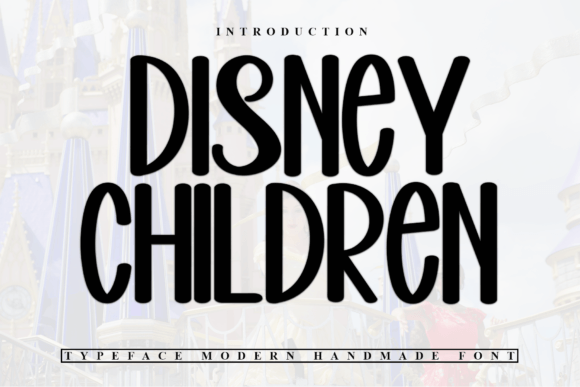
Introducing Disney Children Font: A Festive and Happy Typeface for Your Holiday Designs
The holiday season is a time for joy, giving, and celebration. What better way to capture the spirit of this special time of year than with a font that’s as festive and happy as Disney Children Font? This charming typeface is perfect for adding a touch of magic to your designs, whether you’re creating greeting cards, gift labels, or holiday-themed projects.
A Font that Embodies the Spirit of the Holiday Season
Disney Children Font is a decorative typeface that’s specifically designed to bring a cheerful and nostalgic atmosphere to your words. Its unique flair and whimsical elements evoke the sense of wonder and enchantment that’s synonymous with the holiday season. Whether you’re a designer, a crafty DIY enthusiast, or simply someone who loves to get creative, this font is sure to become a favorite in your collection.
Perfect for a Variety of Holiday Projects
Disney Children Font is incredibly versatile, making it perfect for a wide range of holiday projects. Here are just a few ideas to get you started:
- Greeting cards: Create personalized and festive greeting cards for friends and family.
- Gift labels: Add a touch of magic to your gifts with custom labels that feature this charming font.
- Holiday-themed projects: Use Disney Children Font to create festive posters, flyers, and brochures for your holiday events.
- Social media graphics: Add a holiday touch to your social media posts with festive graphics that feature this delightful font.
Why Choose Disney Children Font?
With so many fonts to choose from, why should you choose Disney Children Font for your holiday designs? Here are just a few reasons:
- Unique and festive: This font is specifically designed to capture the spirit of the holiday season, making it a great choice for anyone looking to add a touch of magic to their designs.
- Versatile: Disney Children Font is perfect for a wide range of holiday projects, from greeting cards to social media graphics.
- High-quality: This font is designed to be clear and legible, even at small sizes, making it perfect for a variety of applications.
Tips for Using Disney Children Font
Here are a few tips for getting the most out of Disney Children Font:
- Experiment with different sizes and colors: This font looks great in a variety of sizes and colors, so don’t be afraid to experiment and find the look that works best for your design.
- Combine with other fonts: Disney Children Font pairs well with a variety of other fonts, so try combining it with other typefaces to create a unique and interesting look.
- Use glyphs and ligatures: Don’t be afraid to get creative with the glyphs and ligatures in Disney Children Font. These special characters can add a touch of whimsy and personality to your designs.
Disney Children Font is a festive and happy typeface that’s perfect for capturing the spirit of the holiday season. With its decorative elements and unique flair, it adds a touch of charm to your designs. Whether you’re creating greeting cards, gift labels, or holiday-themed projects, this font is sure to bring a cheerful and nostalgic atmosphere to your words. So why wait? Download Disney Children Font today and start adding a touch of magic to your holiday designs!